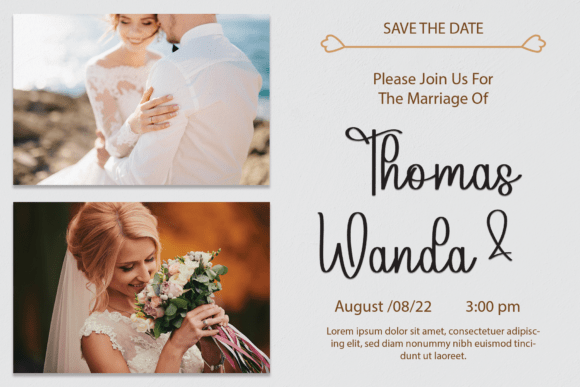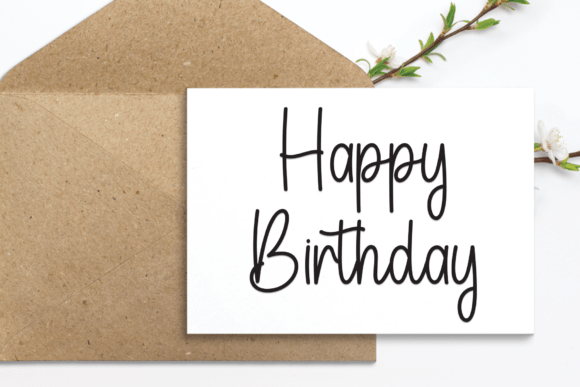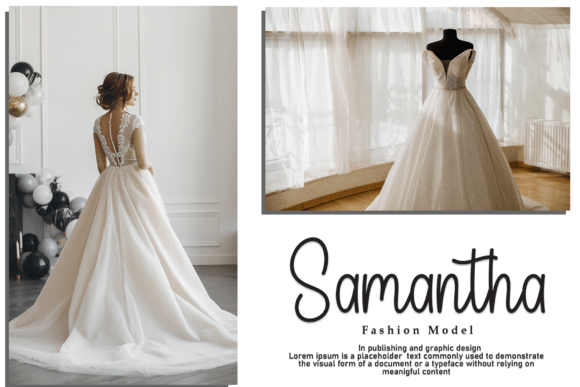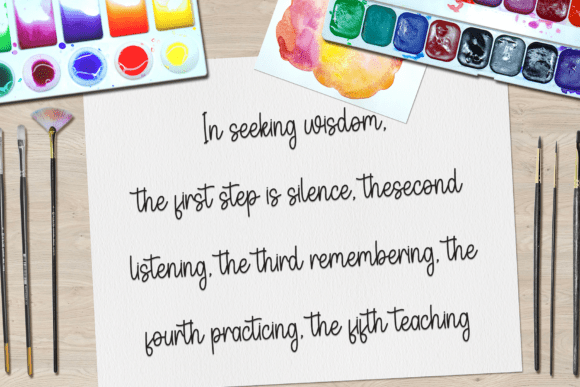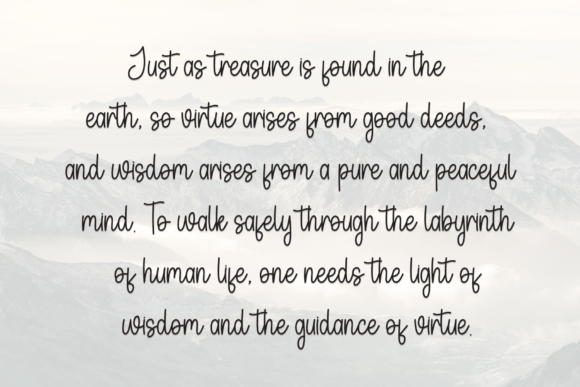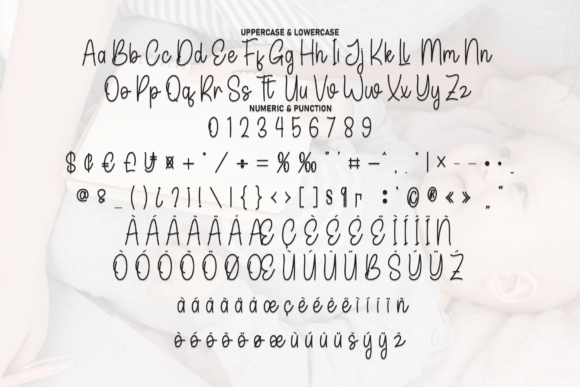
Baby Notebook Font: Elevate Your Designs with Elegance and Sophistication
In the world of typography, few fonts manage to strike a balance between elegance and modernity as effectively as the Baby Notebook Font. This stylish script font has been gaining popularity among designers and crafters for its unique blend of traditional calligraphy and contemporary charm. In this article, we’ll explore what makes Baby Notebook Font a standout choice for various design projects and how it can elevate your creative work.
The Essence of Baby Notebook Font
Baby Notebook Font is characterized by its graceful strokes, fluid curves, and meticulously crafted letterforms. These features come together to create a font that not only captures the beauty of hand-drawn calligraphy but also infuses it with a modern twist. The result is a typeface that exudes sophistication and elegance, making it perfect for designs that require a touch of refinement.
One of the key advantages of Baby Notebook Font is its versatility. Its refined and sophisticated appearance makes it suitable for a wide range of design applications. Here are some of the areas where this font truly shines:
- Logos: For businesses looking to establish a brand identity that conveys luxury, elegance, and professionalism, Baby Notebook Font is an excellent choice. Its unique letterforms can help create a memorable logo that stands out from the competition.
- Invitations: Whether you’re designing wedding invitations, birthday party invites, or baby shower announcements, this font adds a touch of class and sophistication. It sets the tone for a special event and makes a lasting impression on recipients.
- Packaging: For brands in the luxury goods sector, or for products that require a premium feel, Baby Notebook Font can enhance packaging designs. It adds an element of elegance that can make products more appealing to consumers.
- Social Media Graphics: In the digital realm, standing out on social media platforms is crucial. Baby Notebook Font can elevate your social media graphics, making them more engaging and visually appealing to your audience.
Why Choose Baby Notebook Font?
Baby Notebook Font offers several features that make it a preferred choice among designers:
- Natural Flow: The font’s design mimics natural handwriting, providing a fluid and organic feel that resonates with viewers.
- Polished Details: Every letterform is carefully crafted, ensuring that the font has a polished and refined appearance.
- Ease of Use: Despite its sophisticated look, Baby Notebook Font is easy to read and use in various design contexts, making it a practical choice for both digital and print projects.
Tips for Using Baby Notebook Font Effectively
To maximize the impact of Baby Notebook Font in your designs, consider the following tips:
- Pair with Complementary Fonts: For optimal readability and visual interest, pair Baby Notebook Font with simpler sans-serif or serif fonts for body text.
- Adjust Letter Spacing: Depending on the design, adjusting the letter spacing can enhance the font’s elegance and ensure it fits well with the overall layout.
- Use for Headlines and Accents: While it’s tempting to use Baby Notebook Font throughout a design, it’s often most effective when used for headlines, titles, or accent text.
Baby Notebook Font is a stylish and elegant script font that brings a touch of sophistication to any design project. Its unique blend of traditional calligraphy and modern charm makes it a versatile choice for logos, invitations, packaging, and social media graphics. With its natural flow, polished details, and ease of use, Baby Notebook Font is an excellent addition to any designer’s toolkit. Whether you’re a professional designer or a crafter, this font is sure to elevate your creative work and leave a lasting impression on your audience.
So, why settle for ordinary when you can add a touch of elegance and sophistication to your designs? Explore the possibilities with Baby Notebook Font and discover how it can transform your creative projects.